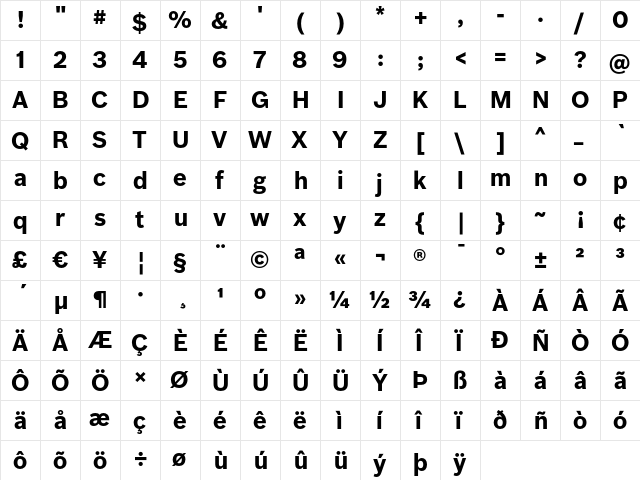
Bosch Bold
Design Context for Bosch Typeface
Bosch offers clean, dependable letterforms without strong stylistic allegiance, making it a practical choice for designers who need flexibility. Its bold stroke weight gives it real presence on the page.
Pro Tip: Pair Bosch with a font of contrasting weight or personality to build a more expressive typographic hierarchy.